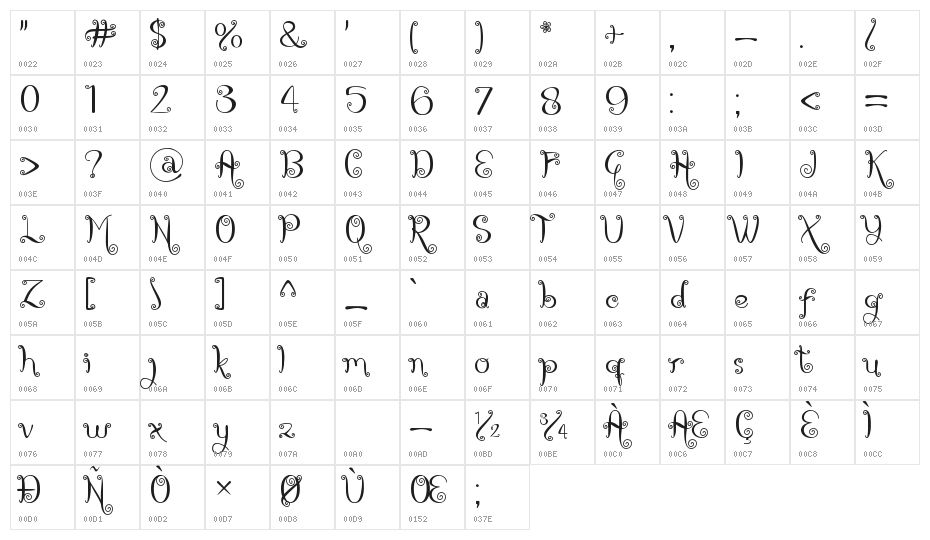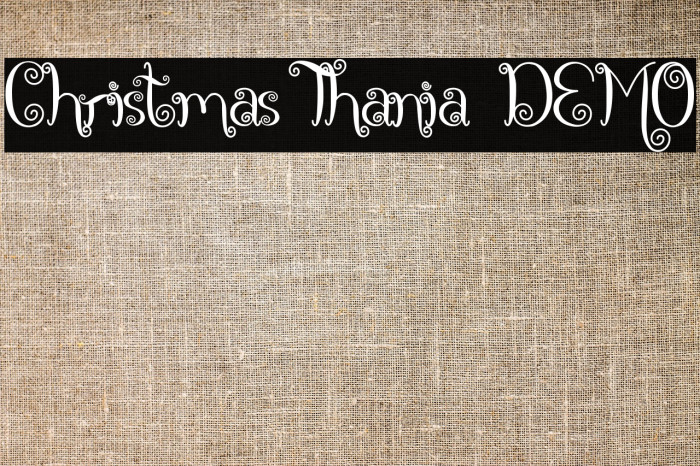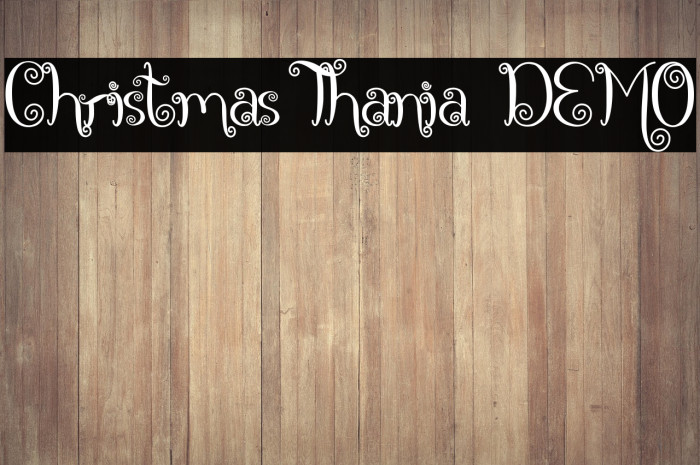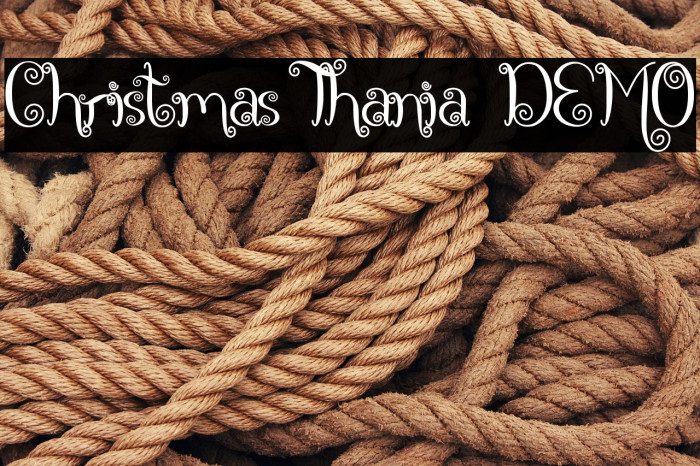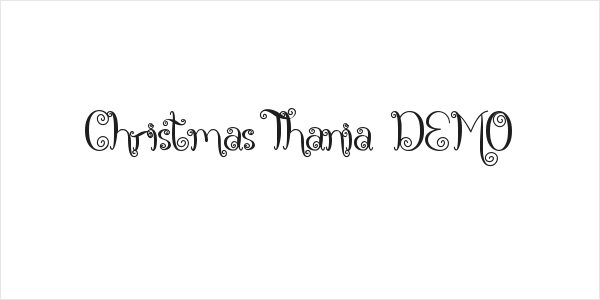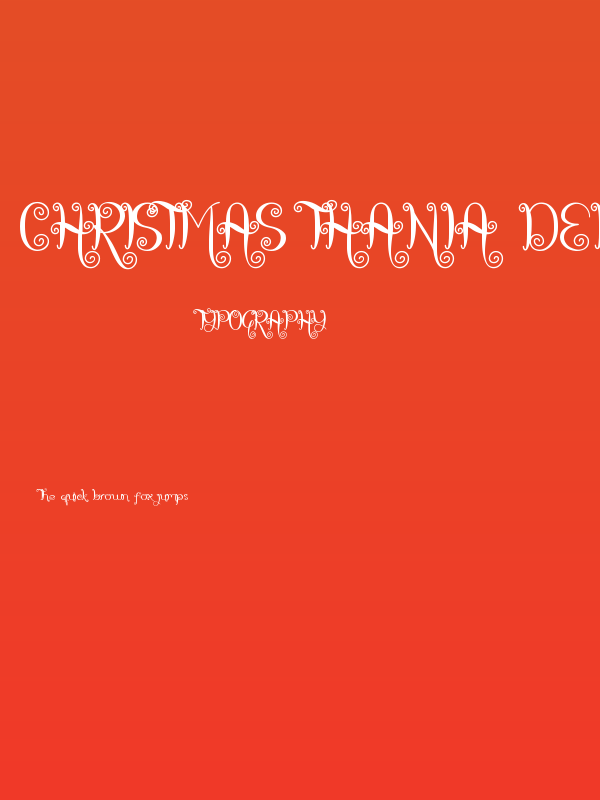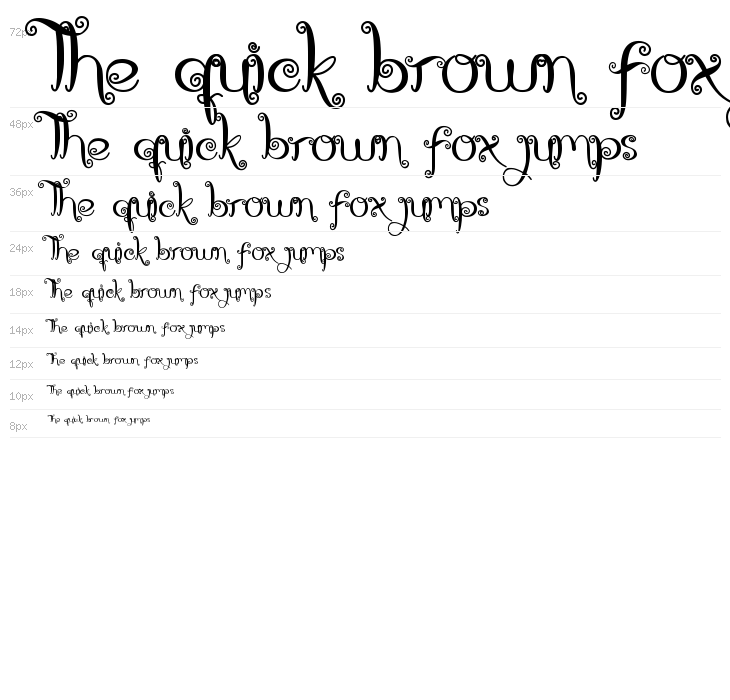
Christmas Thania DEMO Font
Christmas Thania DEMO Description
This font features a whimsical and decorative style, characterized by its playful curls and swirls that adorn each letter. The uppercase and lowercase letters maintain a consistent theme of elegance and flair, with exaggerated loops and embellishments that give it a festive and joyful appearance. The numerals and special characters are equally ornate, making them perfect for adding a touch of charm to any design. The overall look is reminiscent of holiday cheer, making it ideal for seasonal projects or any occasion that calls for a touch of whimsy.